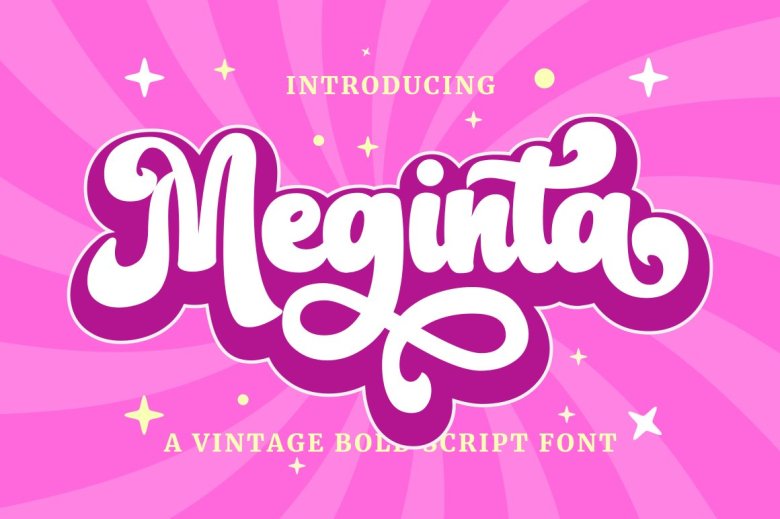
Meginta Font
Do you want to give your first-rate designs a dash of ancient air? Then Meginta is just what the doctor ordered. It combines its own refreshing update with the most traditional models, letting each word show off its strong character. The script lettering of Meginta is an art work carved in fine detail.
It has beautiful and elegant handwriting everywhere, the kind reserved only for bygone ages yet here for you now. Meginta is suited to logos, banners and much on down the line. From printed materials to web design, Meginta will give your message extra distinction and power.
With the classic appeal of Meginta including only a slight hint of the new age, this font has what it takes to be both credible and modern at once. On top of that, you are not just purchasing yet another beautiful retro vintage script font; Meginta comes complete with its own personality. So come on, put the touch of Meginta into your own designs and let a unique star be born.
Meginta Bold Calligraphy Script Font